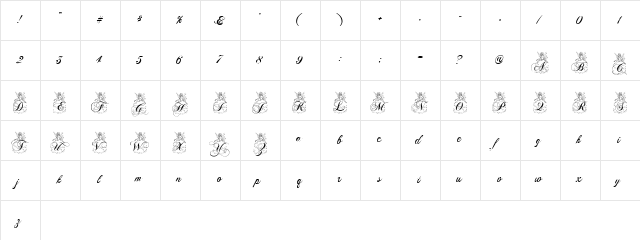
AL Cinderella Regular
Design Context for AL Cinderella Typeface
AL Cinderella is a composed and adaptable typeface that performs quietly and consistently across a wide range of design contexts.